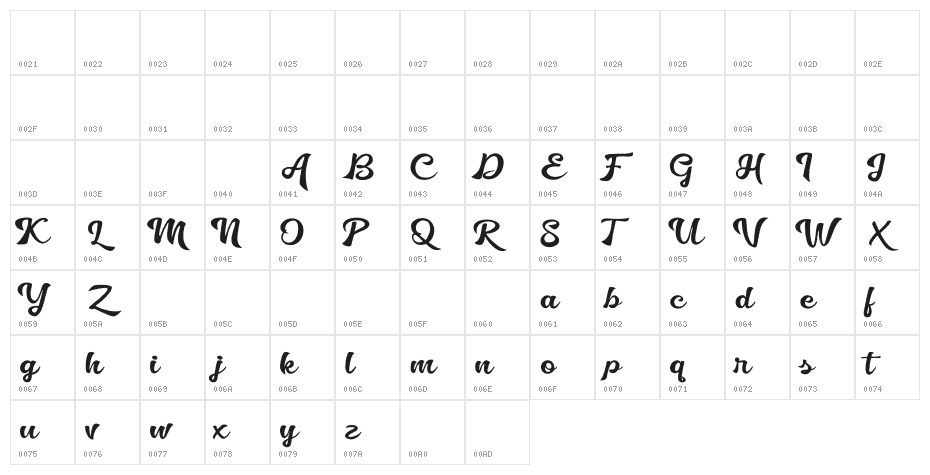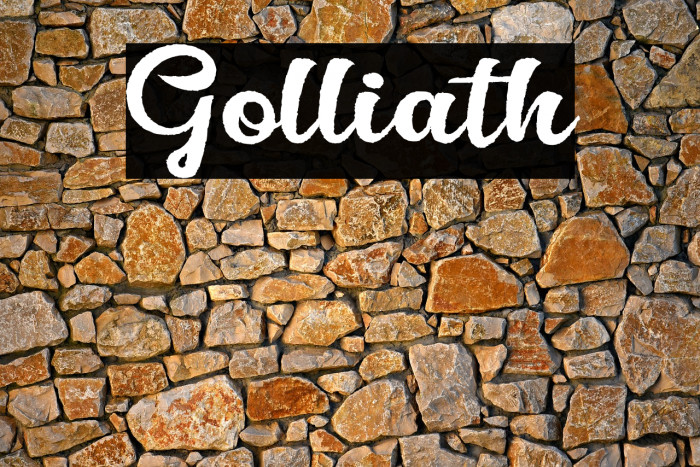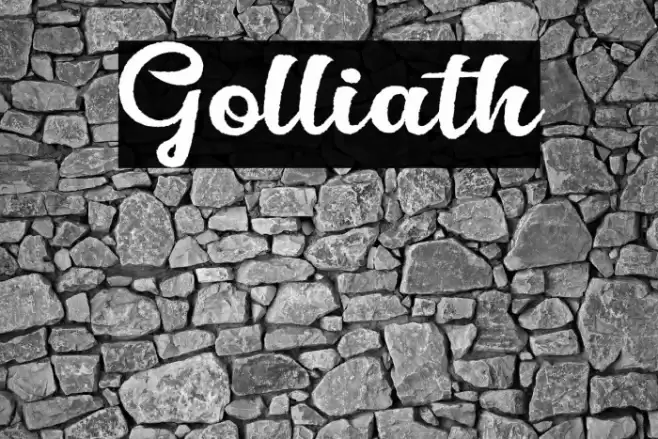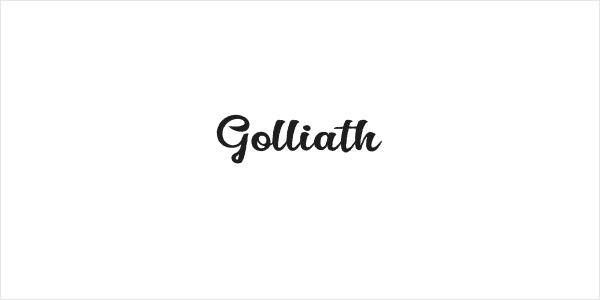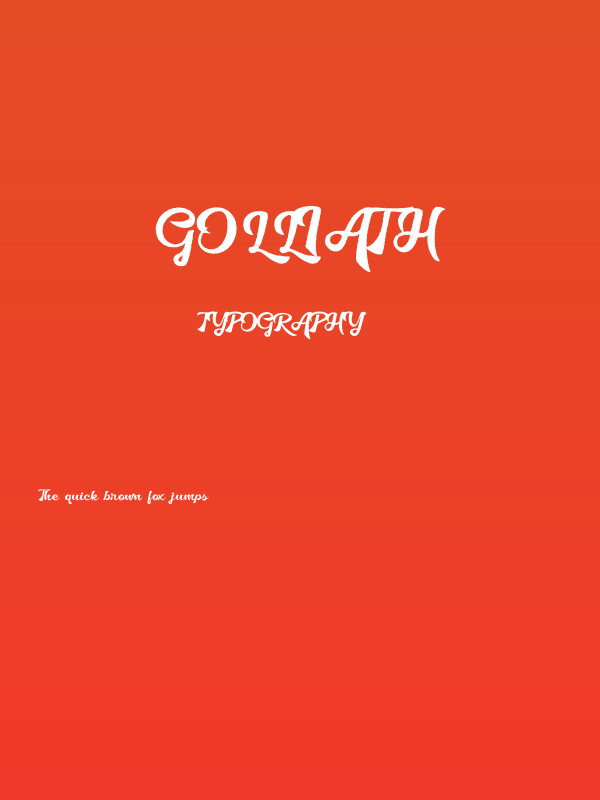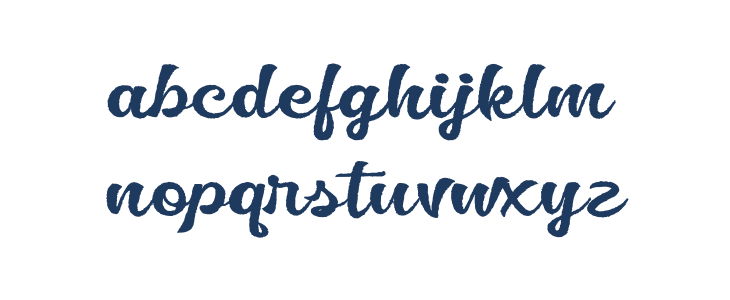
Golliath Font
Golliath Description
This font features a bold, flowing script style that combines elegance with a touch of playfulness. The uppercase letters are characterized by sweeping curves and flourishes, giving them a dynamic and expressive appearance. The lowercase letters maintain a consistent flow, with smooth connections between characters, enhancing readability while retaining a handwritten charm. The overall design is reminiscent of calligraphy, with a modern twist that makes it suitable for a variety of creative applications. The bold strokes and high contrast between thick and thin lines add to its visual impact, making it ideal for attention-grabbing headlines or artistic projects.